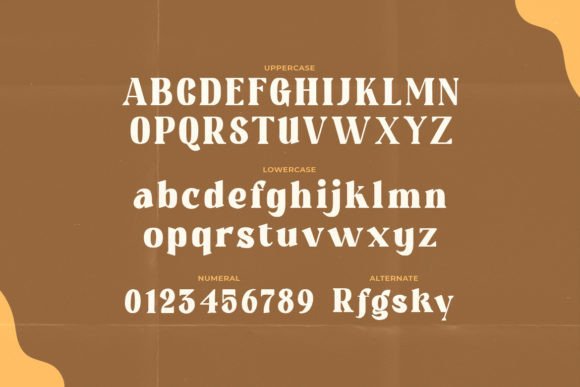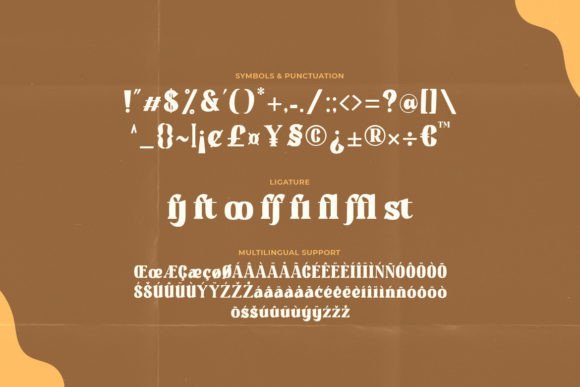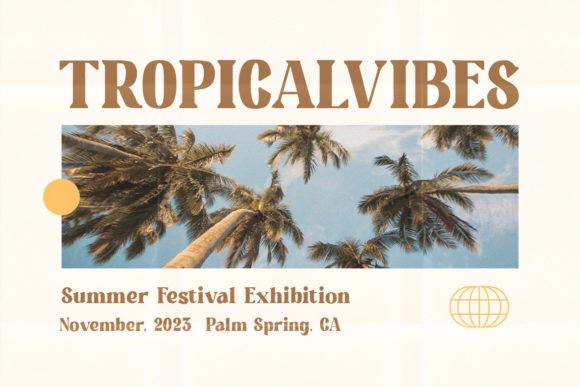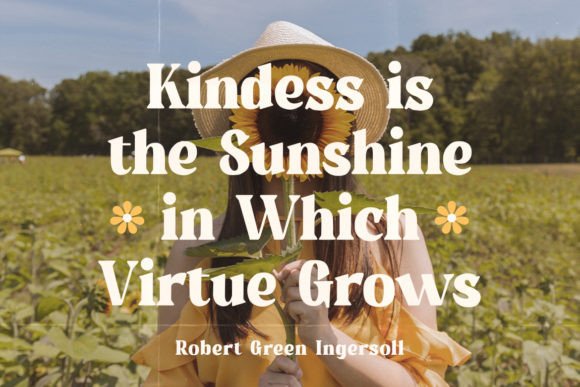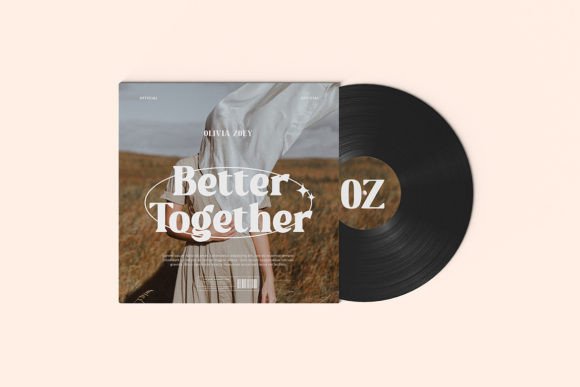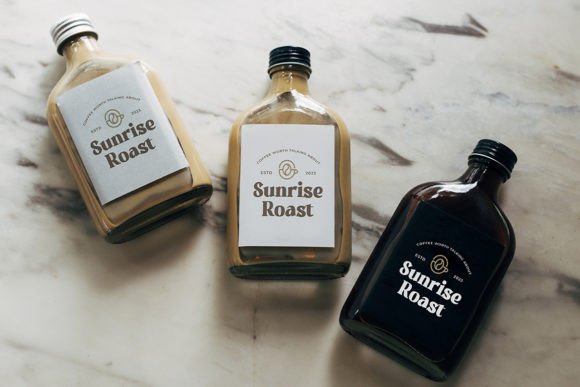
Croffle Font: The Perfect Addition to Your Design Projects
Are you looking for a font that can add a touch of playfulness and beauty to your design projects? Look no further than the Croffle Font! This incredibly fun, beautiful, and playful serif font is sure to enhance the look of almost any project you have coming up. With its nice spring and autumn vibes and modern style, Croffle Font is the perfect choice for designers and crafters alike.
What is Croffle Font?
Croffle Font is a unique and creative serif font that features a playful and modern design. Its beautiful and elegant lines make it perfect for a wide range of design projects, from invitations and greeting cards to posters and social media graphics. The font’s spring and autumn vibes give it a fresh and seasonal feel, making it ideal for projects that require a touch of whimsy and fun.
Key Features of Croffle Font
- Playful and Modern Design: Croffle Font features a playful and modern design that is sure to add a touch of fun and creativity to your design projects.
- Serif Font: As a serif font, Croffle Font features small lines or flourishes at the ends of its letters, giving it a classic and elegant look.
- Spring and Autumn Vibes: The font’s spring and autumn vibes give it a fresh and seasonal feel, making it perfect for projects that require a touch of whimsy and fun.
- Beautiful and Elegant Lines: Croffle Font features beautiful and elegant lines that make it perfect for a wide range of design projects.
Why Choose Croffle Font?
There are many reasons why you should choose Croffle Font for your design projects. Here are just a few:
- Unique and Creative: Croffle Font is a unique and creative font that will help your design projects stand out from the crowd.
- Versatile: The font is versatile and can be used for a wide range of design projects, from invitations and greeting cards to posters and social media graphics.
- Easy to Read: Croffle Font is easy to read, making it perfect for projects that require a clear and concise message.
- Supports Multiple Languages: The font supports multiple languages, making it perfect for designers and crafters who work with international clients.
How to Use Croffle Font
- Pair it with Other Fonts: Croffle Font pairs well with other fonts, making it perfect for projects that require a combination of fonts.
- Use it for Headings and Titles: The font is perfect for headings and titles, making it a great choice for projects that require a bold and eye-catching look.
- Experiment with Different Colors: Croffle Font looks great in a variety of colors, so don’t be afraid to experiment and find the perfect color for your project.